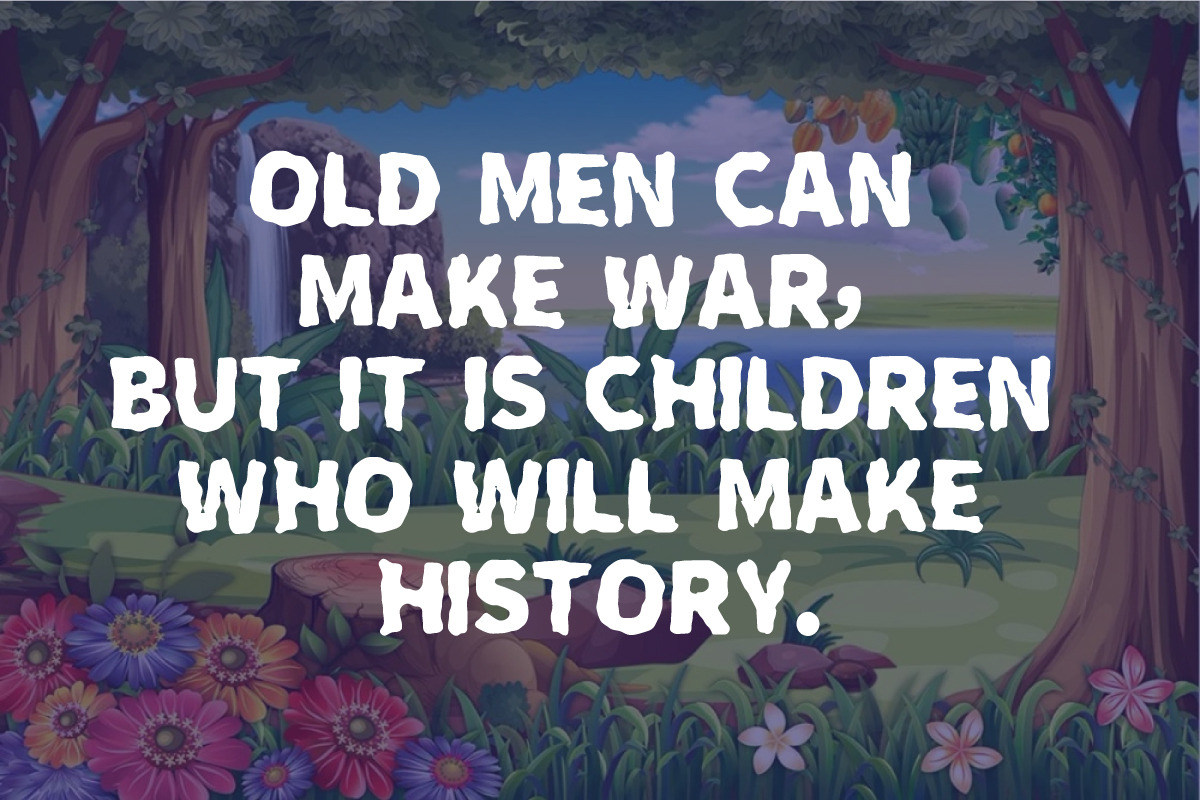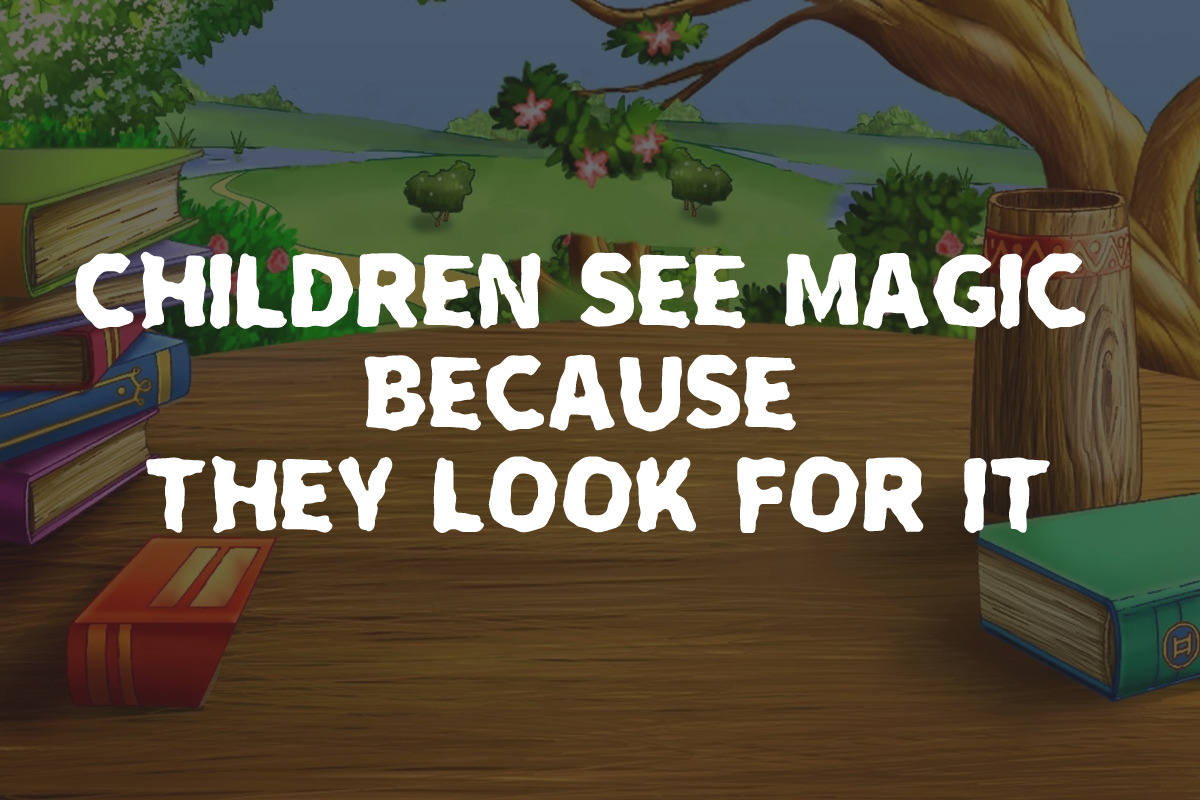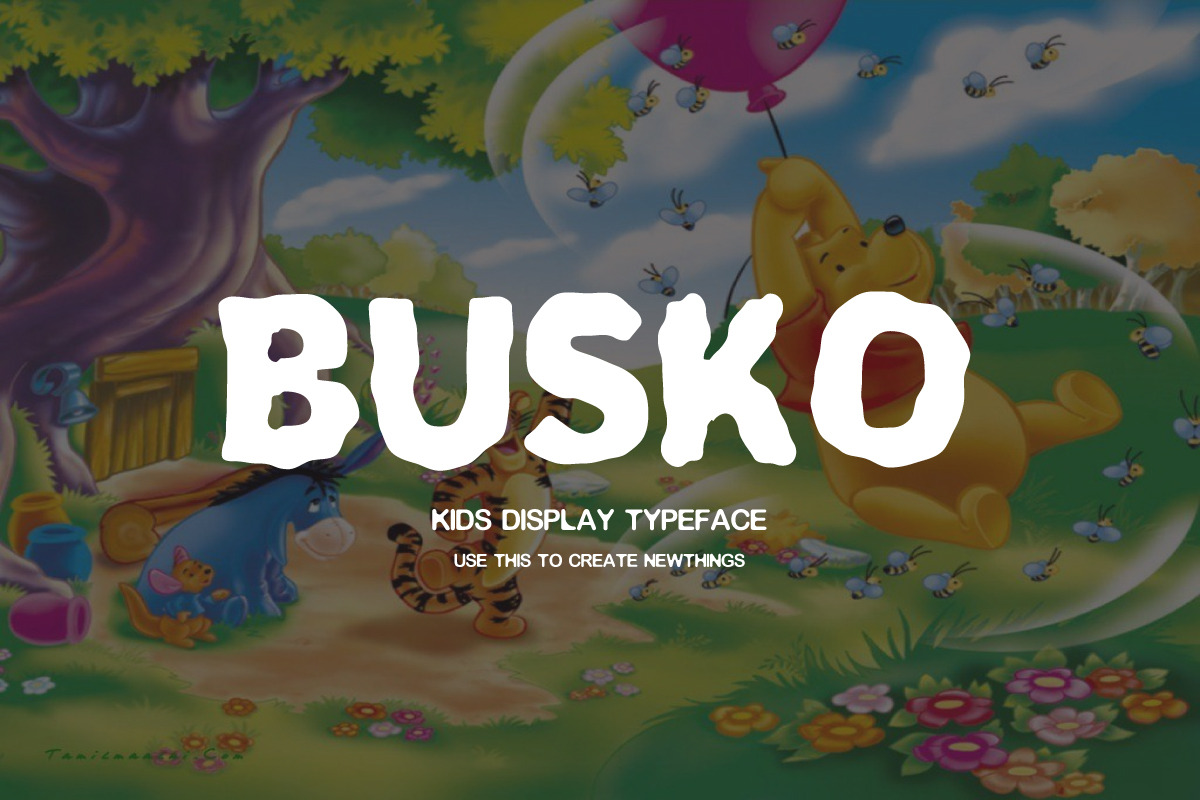
BUSKO FONT
Busko is a strong, bold, geometric display font. Whatever the topic, this font will be a wonderful asset to your font library, as it has the potential to enhance any creation.